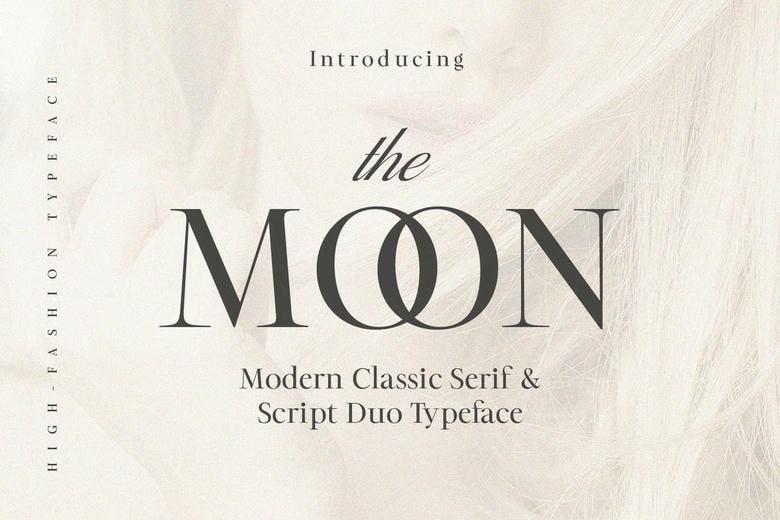
The Moon Font
The Moon consists of a modern, old-style set of typefaces; a classical serif, and a simple calligraphic script. Fashionable and romantic, this font was motivated by the elegance of editorial design, luxurious garment, opulent wedding invitation stationery and classy logo design.
The Moon Font Duo